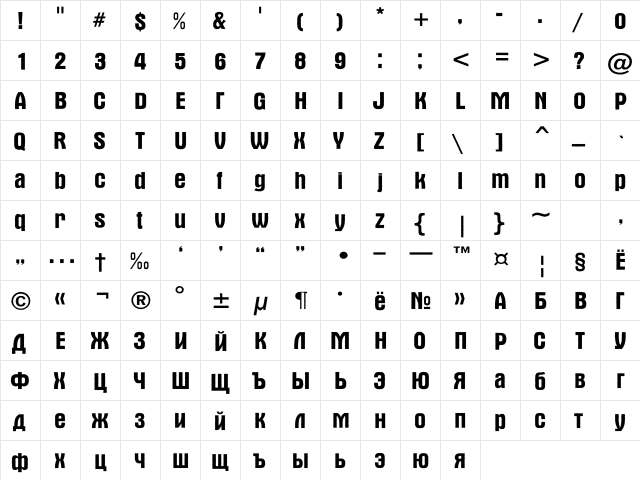
a_AlternaRg Demi
Design Context for a_AlternaRg Typeface
a_AlternaRg takes a measured approach to typography — its balanced proportions and neutral character make it a reliable workhorse for both digital and print work.